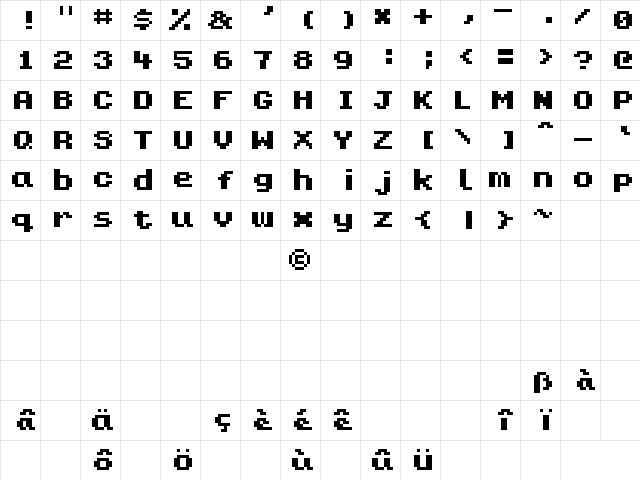
Kongtext Regular
Design Context for Kongtext Typeface
Kongtext is a composed and adaptable typeface that performs quietly and consistently across a wide range of design contexts.